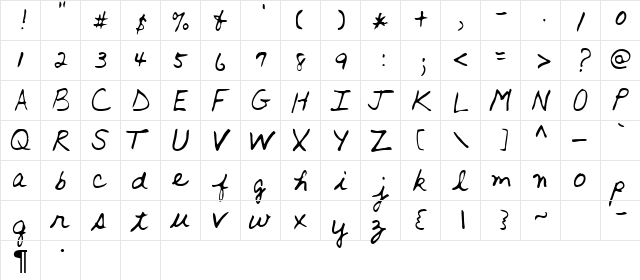
Alan Regular
Design Context for Alan Typeface
Alan takes a measured approach to typography — its balanced proportions and neutral character make it a reliable workhorse for both digital and print work.